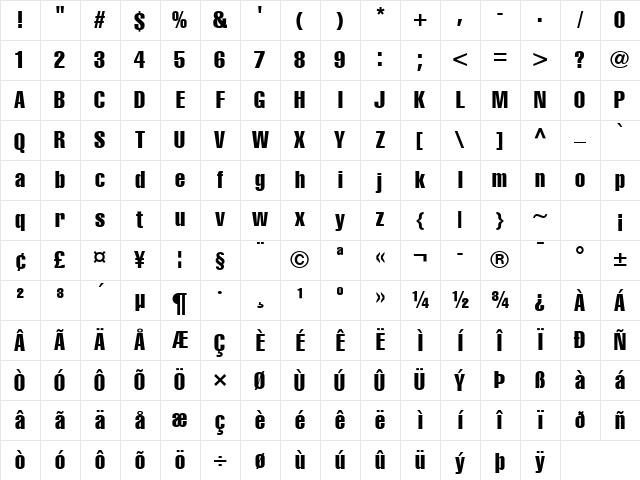
Helvetica Compressed
Style: Compressed
Complete Helvetica Compressed glyph index. Displaying only characters natively supported by Helvetica Compressed font.
Design Context for Helvetica
Helvetica is a composed and adaptable typeface that performs quietly and consistently across a wide range of design contexts.